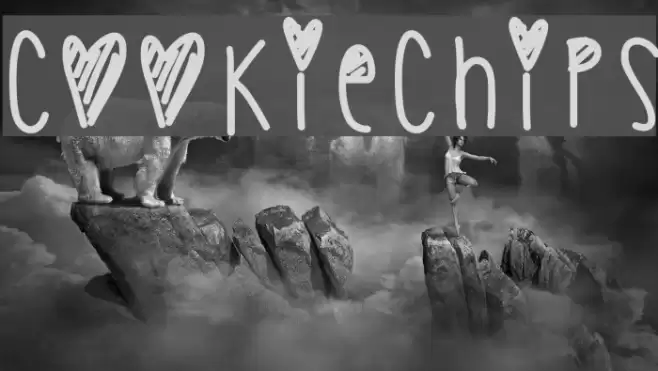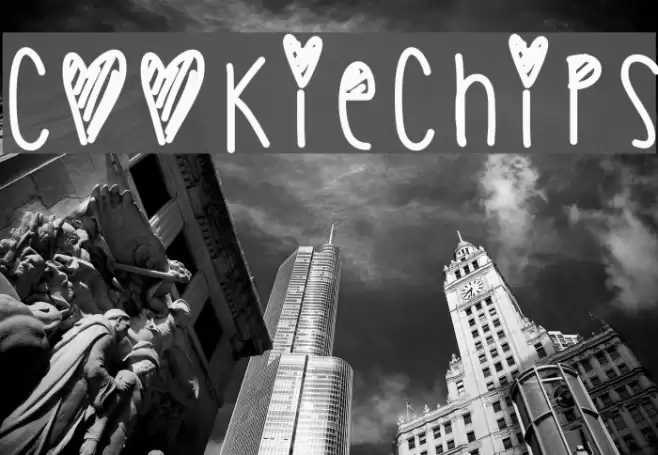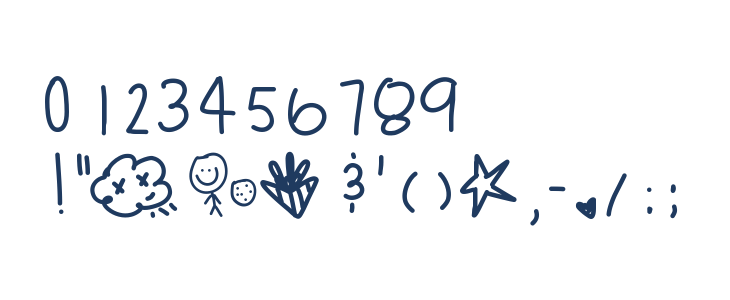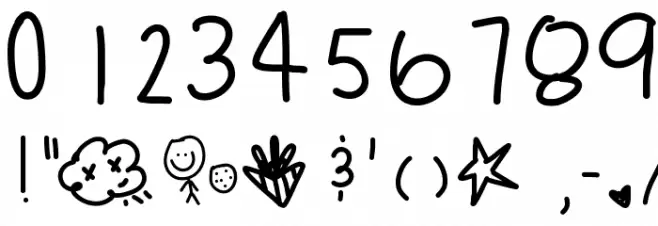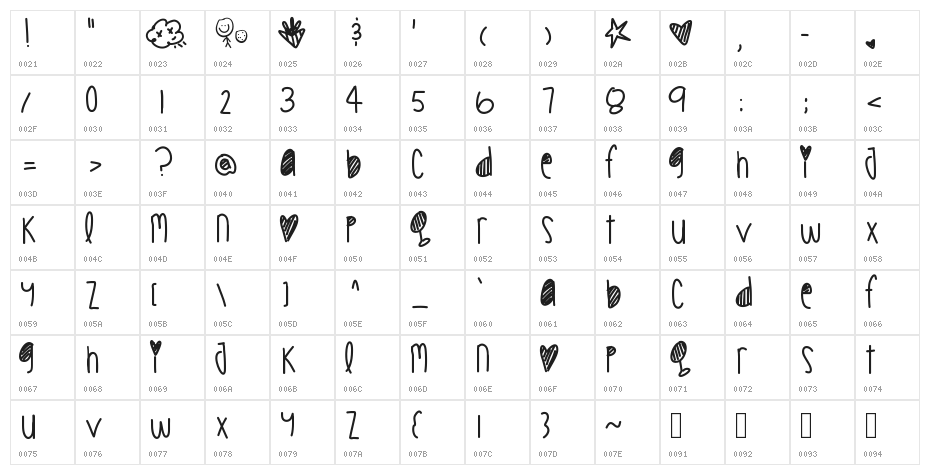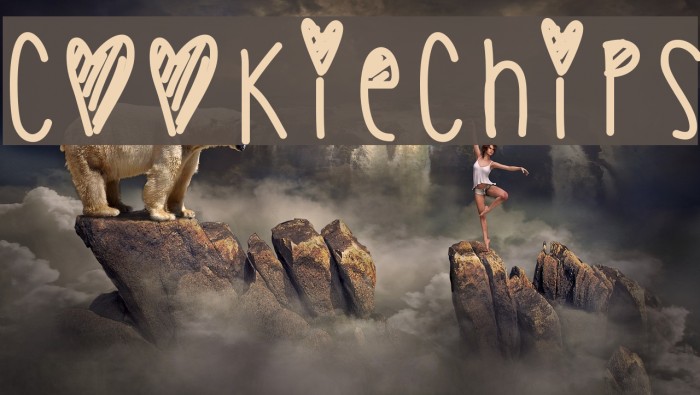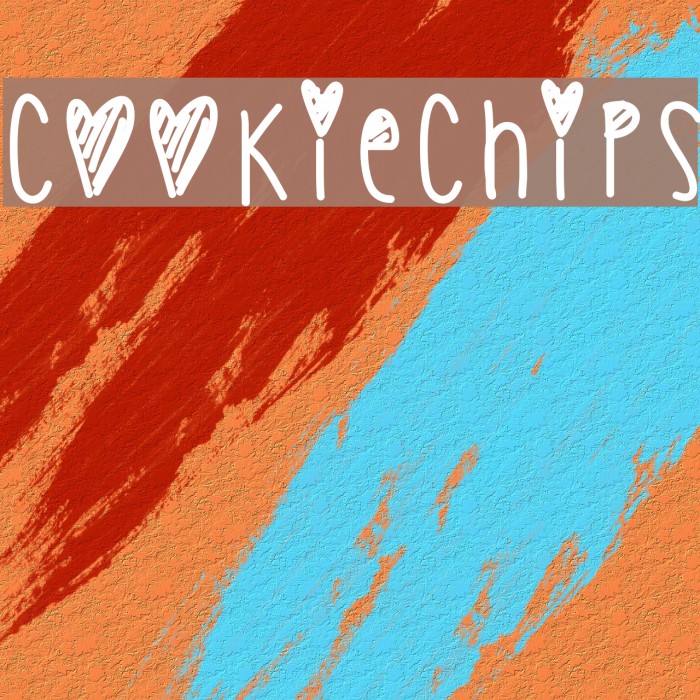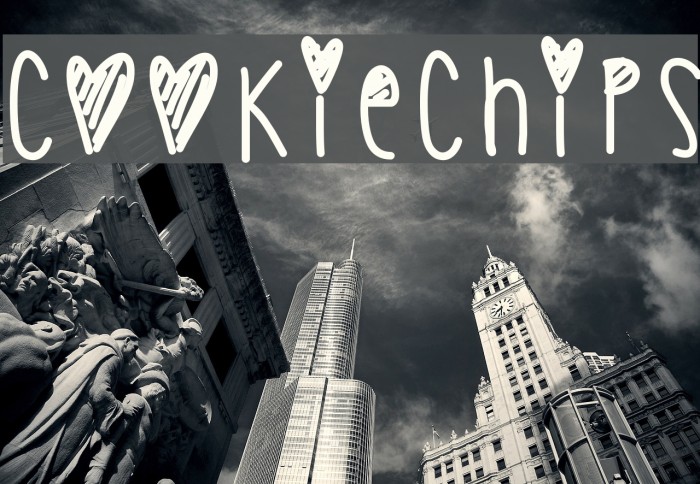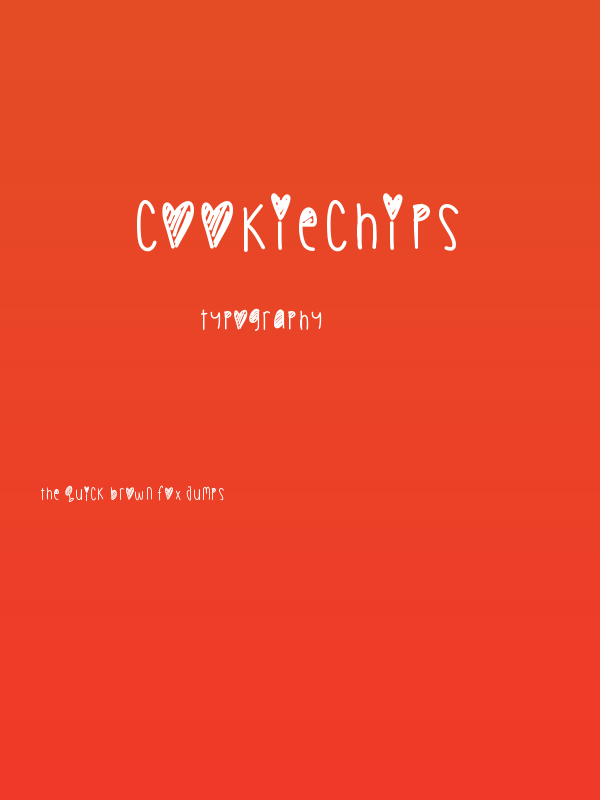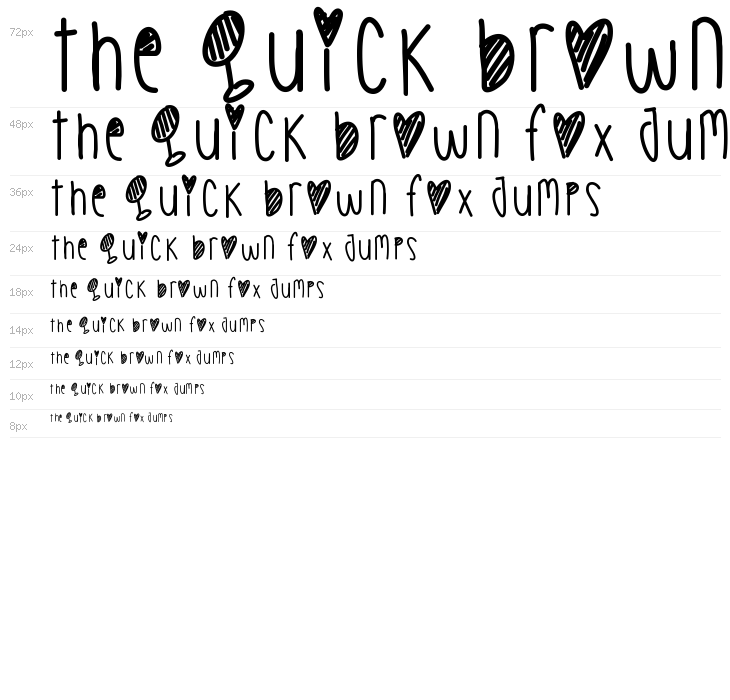
CookieChips Font
CookieChips Description
This playful and whimsical font features a handwritten style with a casual, informal appearance. Each character is uniquely crafted with a mix of rounded and angular lines, giving it a quirky and fun personality. The letters are slightly irregular, adding to the charm and hand-drawn feel. The font includes a variety of special characters and symbols, such as hearts and stars, enhancing its decorative appeal. The overall design is light-hearted and friendly, making it suitable for creative and informal projects.
A playful, handwritten font with a whimsical and decorative style from Uncategorized fonts.